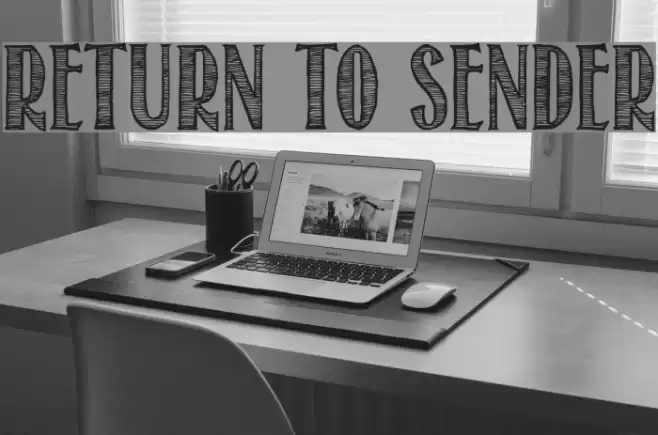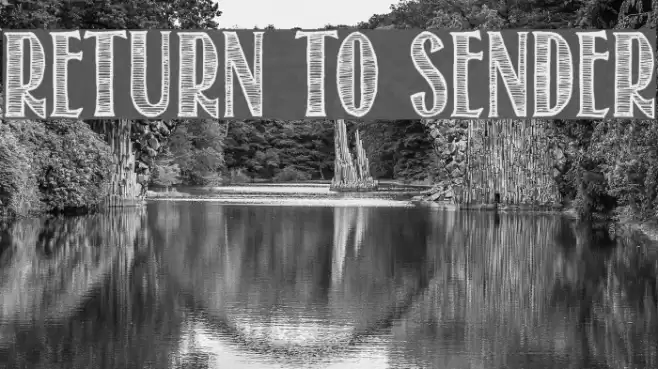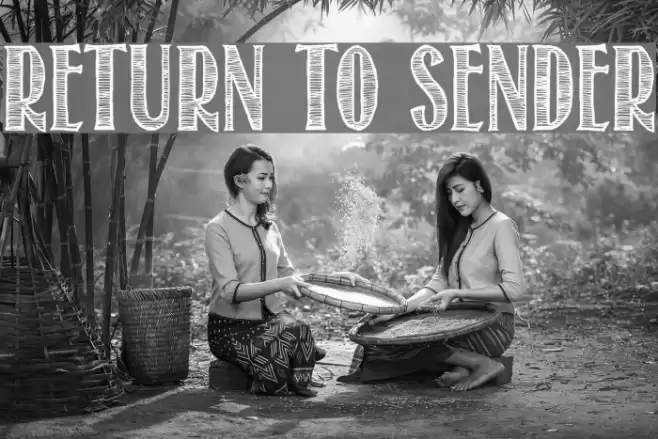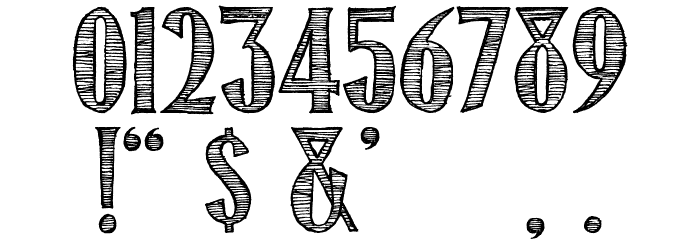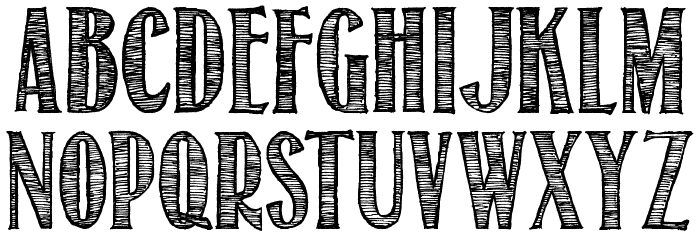
Return To Sender Font
Return To Sender Description
This font features a hand-drawn, sketch-like appearance with a textured, lined fill that gives it a rustic and artistic feel. The characters are bold and slightly condensed, with a playful yet structured design. The uppercase letters are prominent and commanding, while the lowercase letters maintain a consistent style. The numerals and special characters are equally detailed, ensuring a cohesive look across all elements. This font's unique texture and handcrafted style make it stand out, adding a personal touch to any design.
A bold, hand-drawn font with a textured, sketch-like appearance from Uncategorized fonts.
- Proposed Projects: Ideal for creative projects such as posters, invitations, and branding that require a handcrafted, artistic touch.